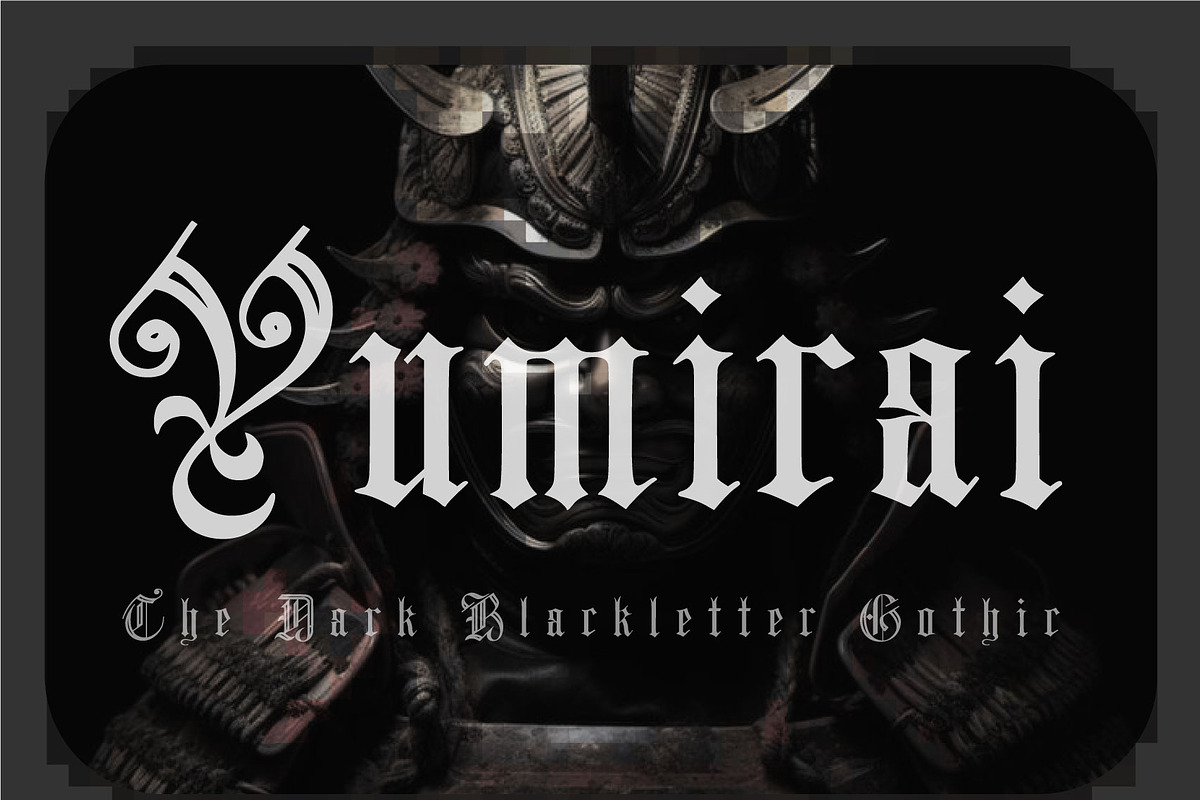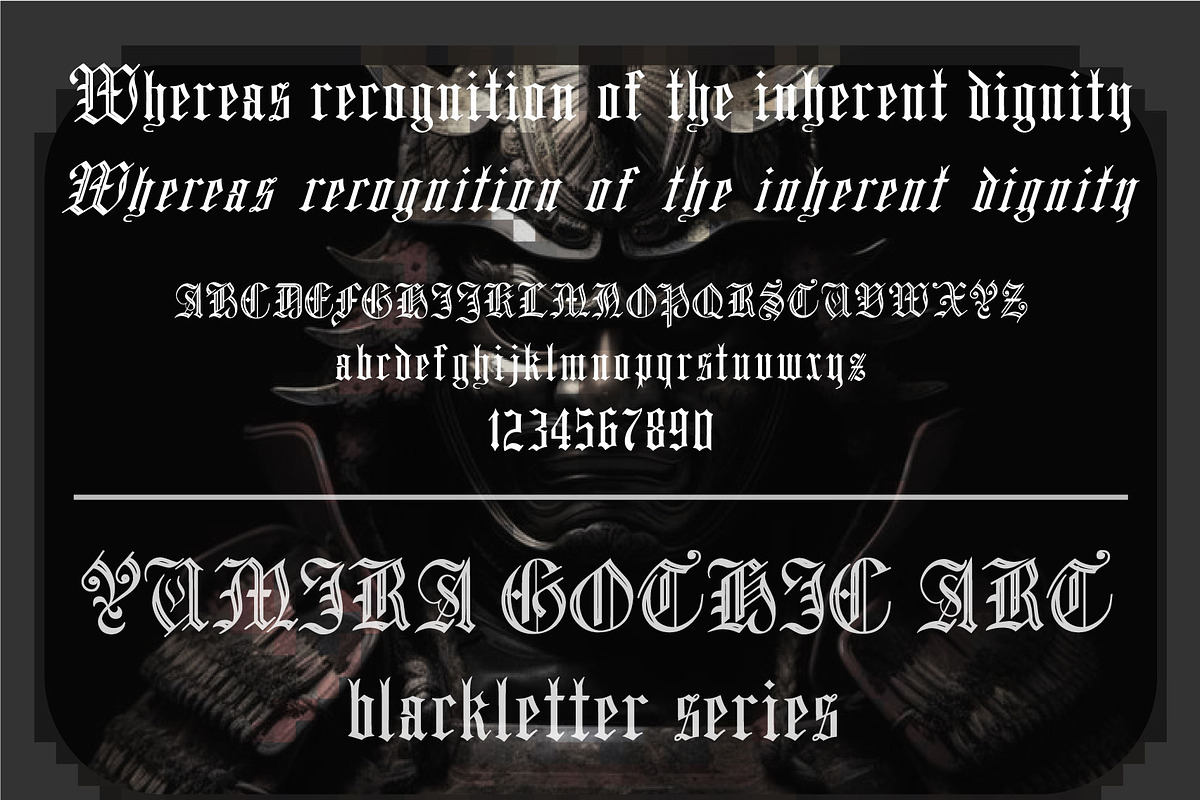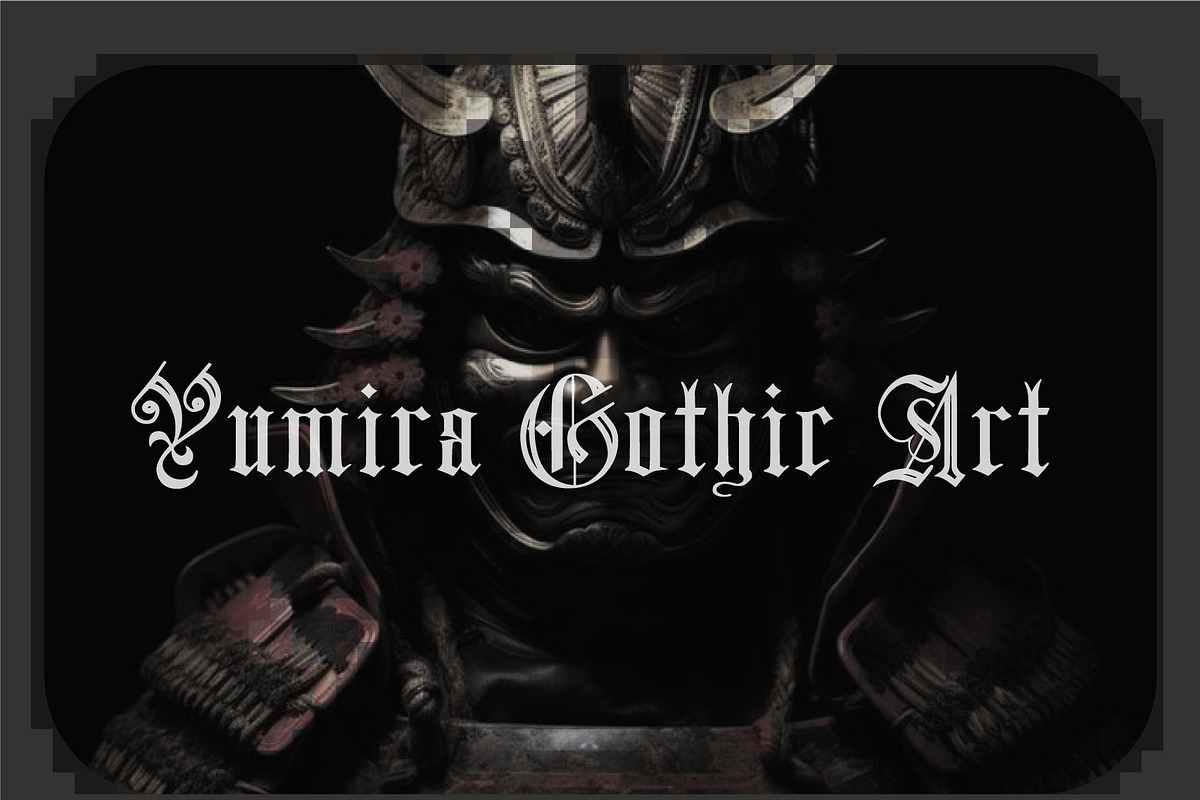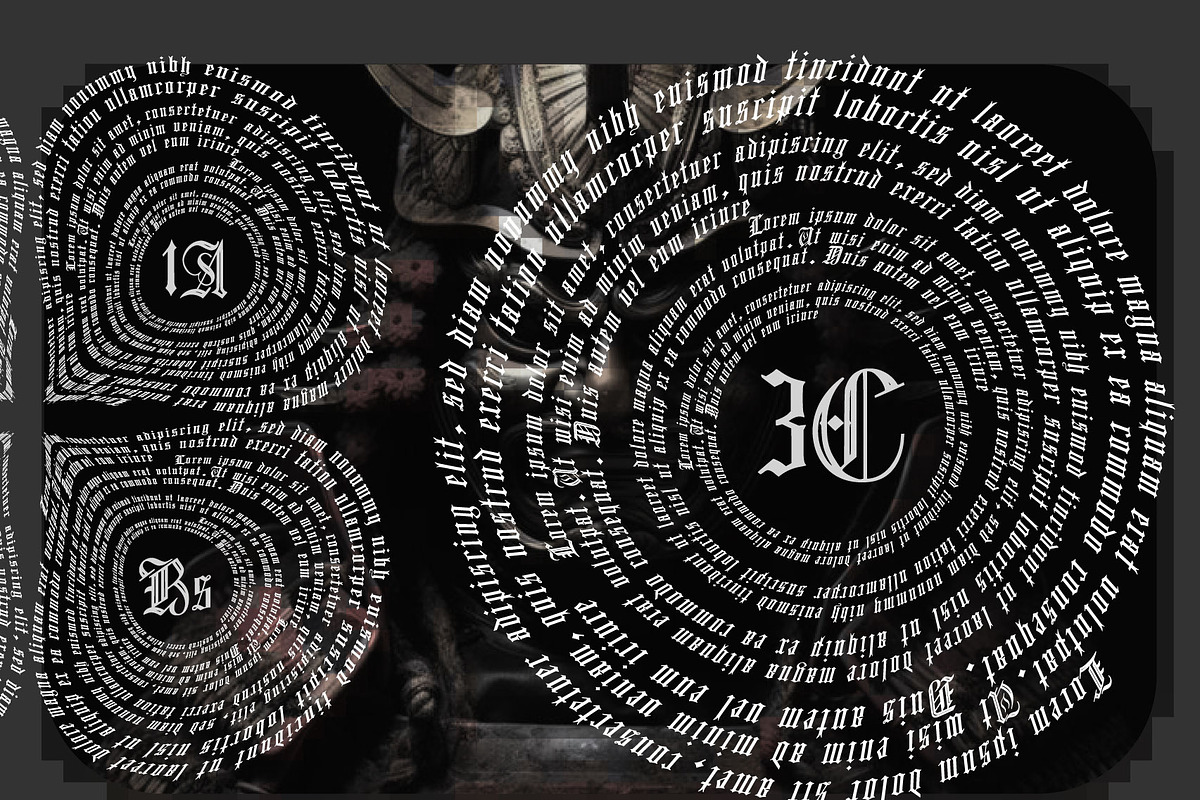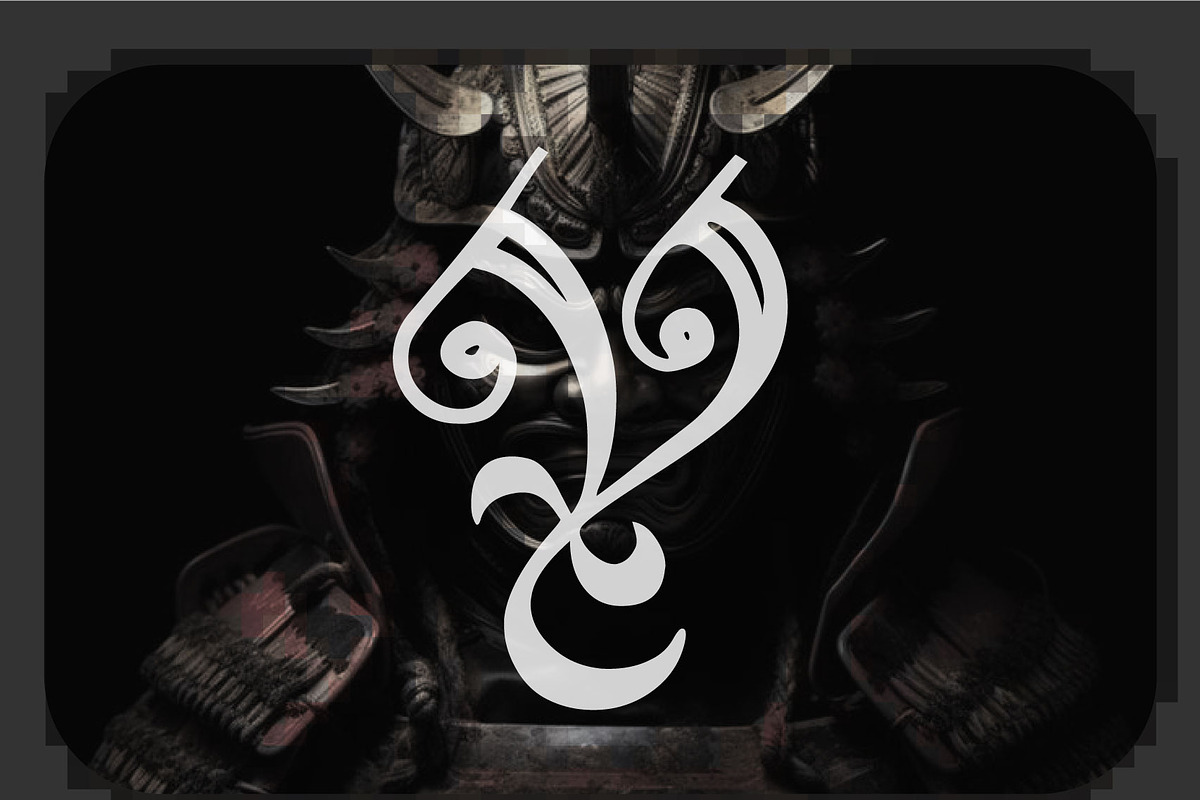
Yumirai Gothic Art
series Regular Italic Web Font
Blackletter (sometimes black letter or black-letter), also known as Gothic script, Gothic minuscule or Gothic type, was a script used throughout Western Europe from approximately 1150 until the 17th century